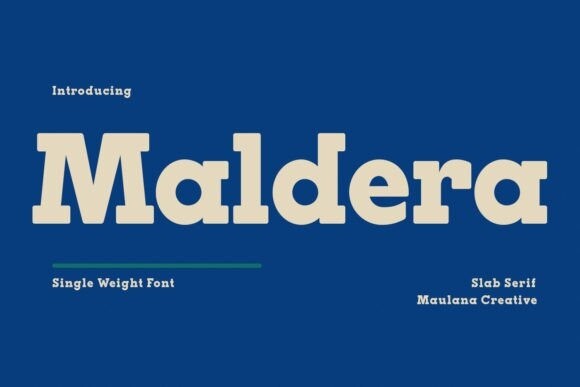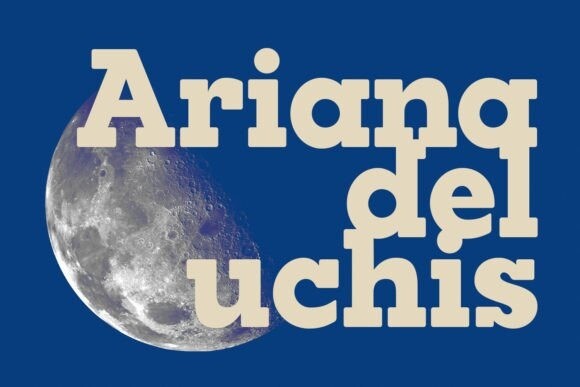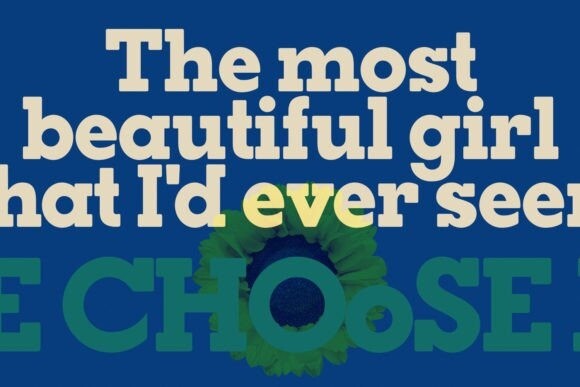
Maldera Font
Maldera Font is a timeless and bold serif font. Fall in love with its incredibly versatile style and use it to create gorgeous wedding invitations, beautiful stationary art, eye-catching social media posts, and much more!